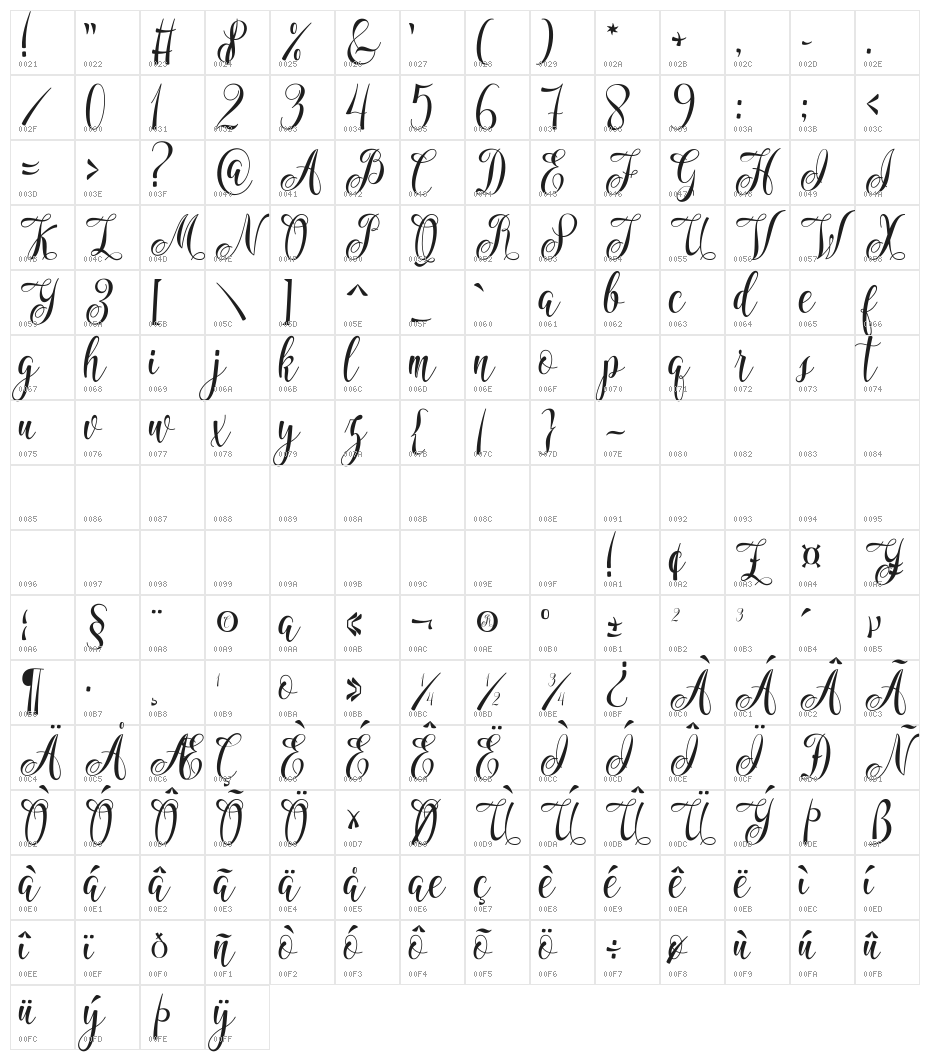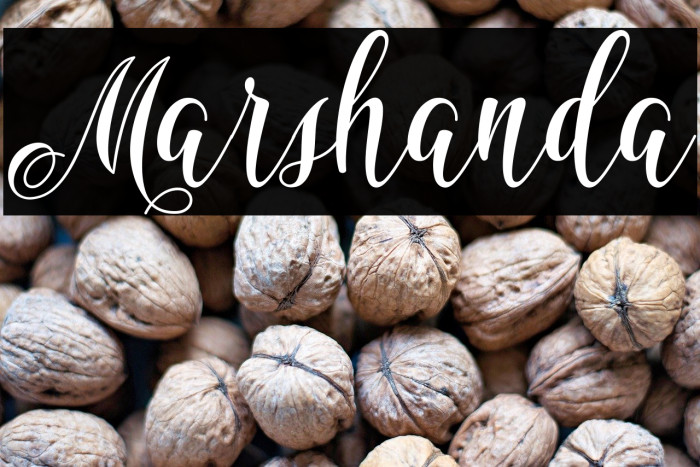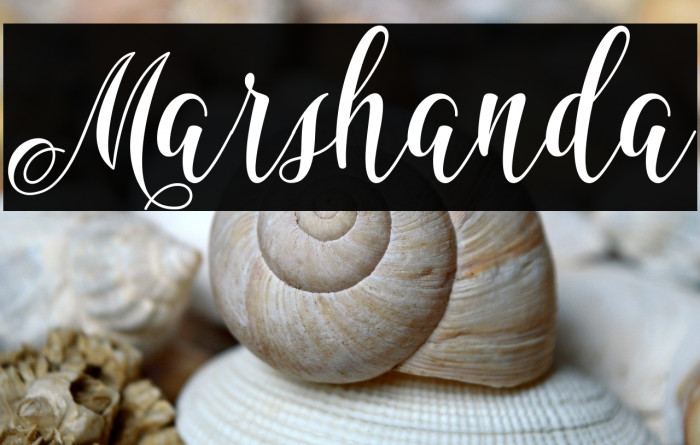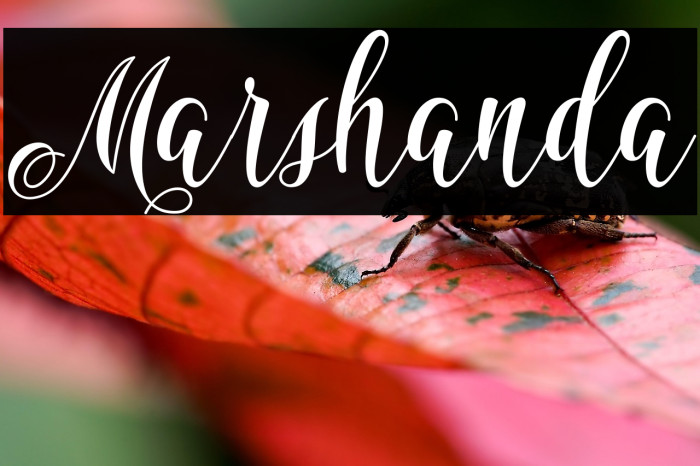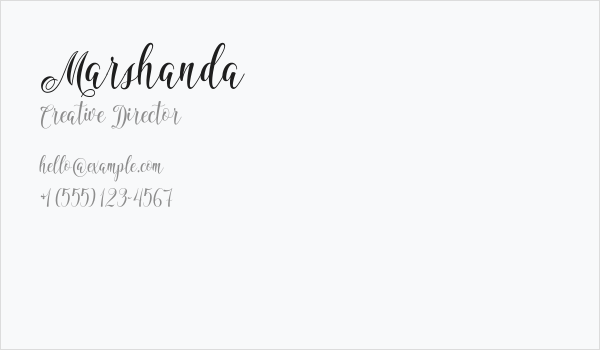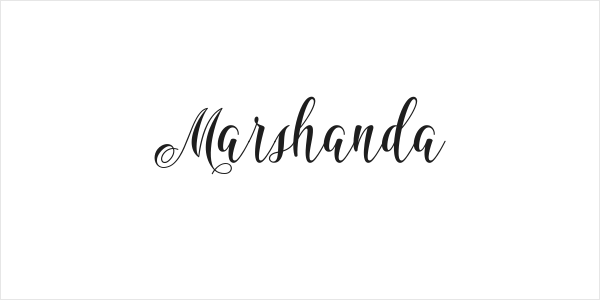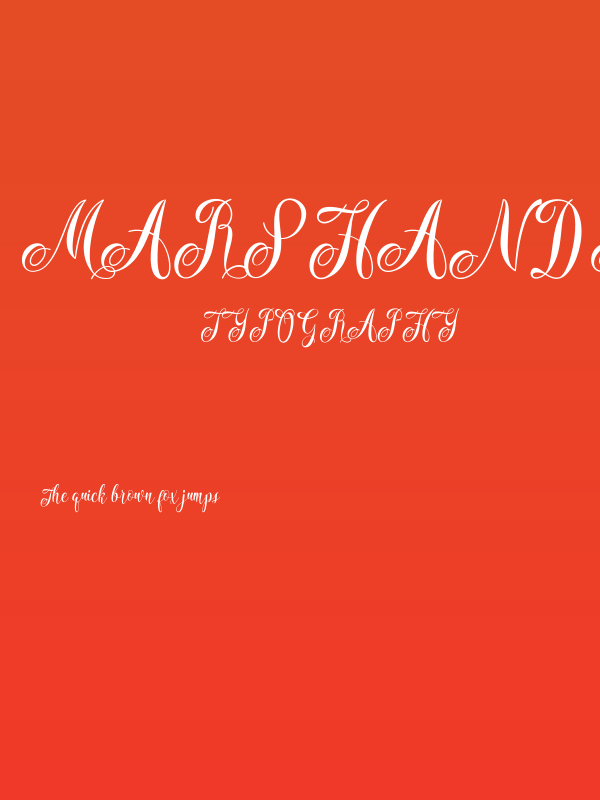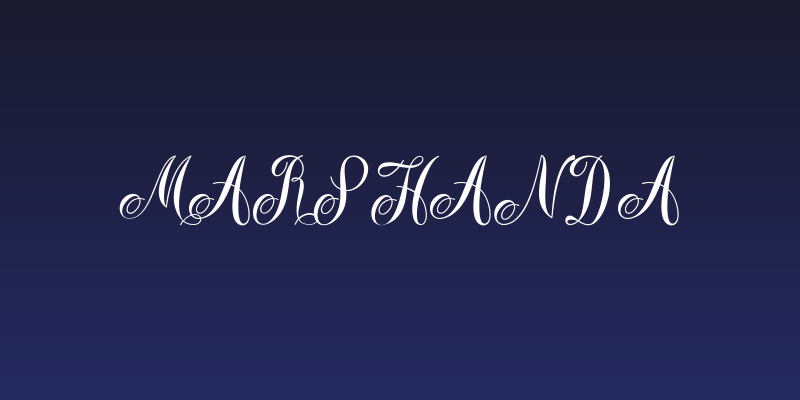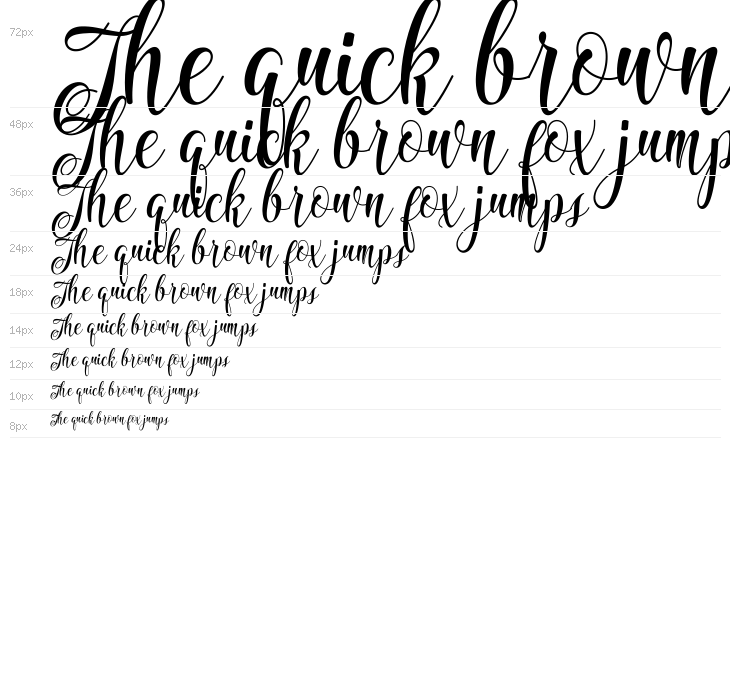
Marshanda Font
Marshanda Description
This font features an elegant and flowing script style with intricate loops and swashes, giving it a sophisticated and decorative appearance. The uppercase letters are particularly ornate, with each character having unique flourishes that add to its charm. The lowercase letters maintain a consistent style, with smooth curves and a slightly slanted orientation, enhancing the overall fluidity of the text. The numerals are designed to match the elegance of the letters, with similar loops and curves. Special characters are also included, maintaining the decorative theme. This font is ideal for projects that require a touch of elegance and sophistication.
| Proposed Projects | Wedding invitations, luxury branding, greeting cards, elegant packaging. |